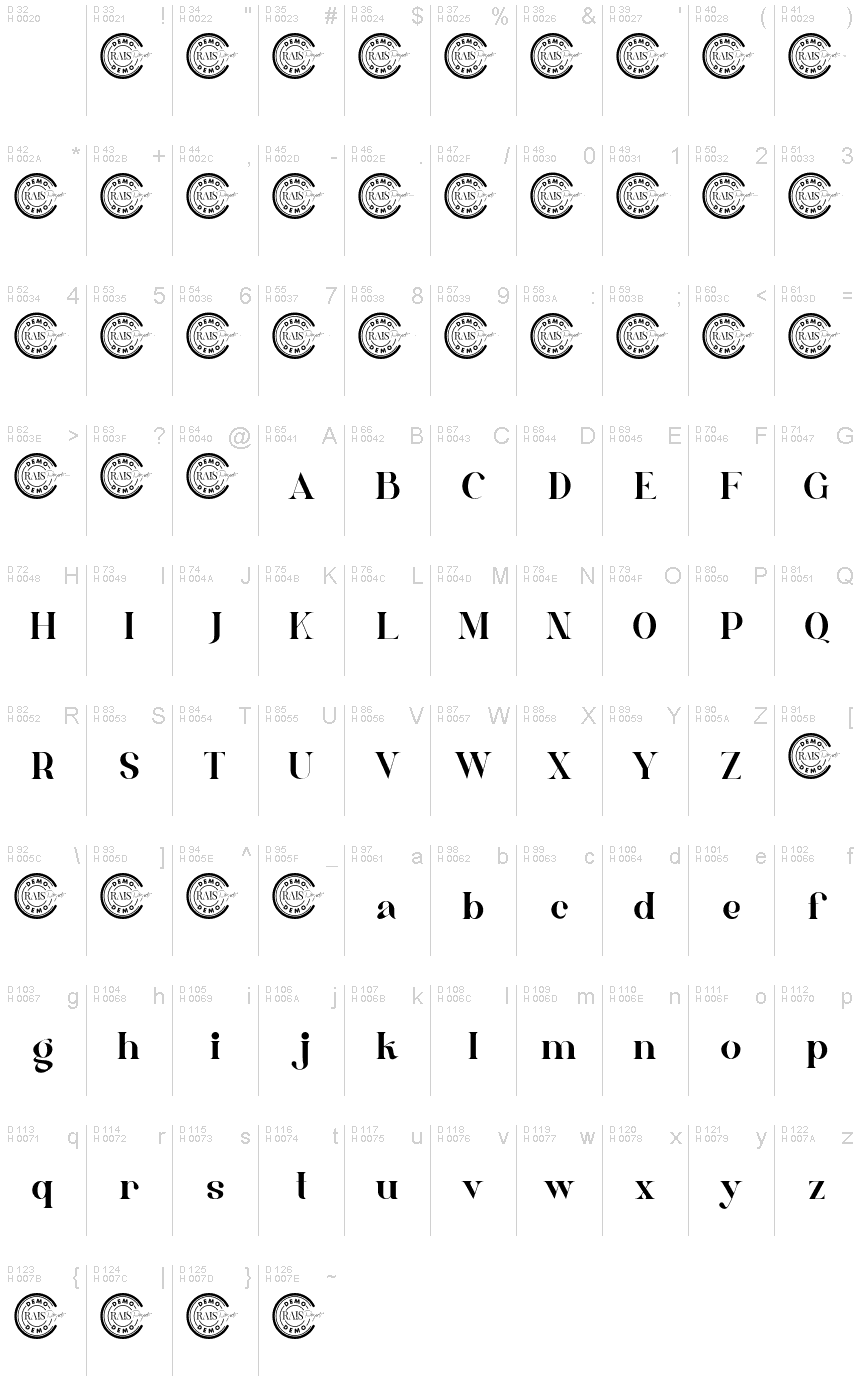
Andre Martin, a bold serif font by RaisProject, emanates an air of sophistication and elegance. With its well-defined strokes and striking presence, this font is perfect for creating impactful headlines and titles that demand attention. Its distinctive design lends itself to a wide range of projects such as luxury brand logos, fashion magazines, high-end product packaging, and refined invitations.
Andre Martin's commanding presence exudes confidence and authority, making it an ideal choice for corporate reports or prestigious academic publications. Elevate your designs with this captivating typeface that leaves a lasting impression on any project.